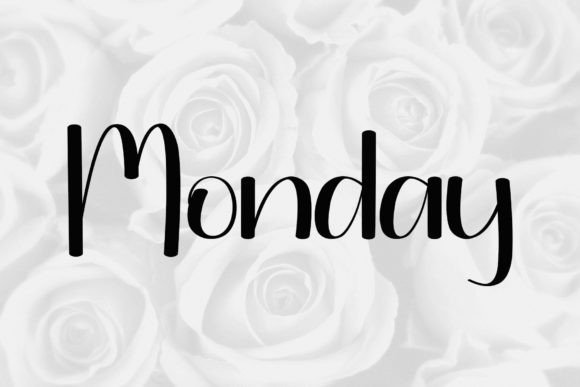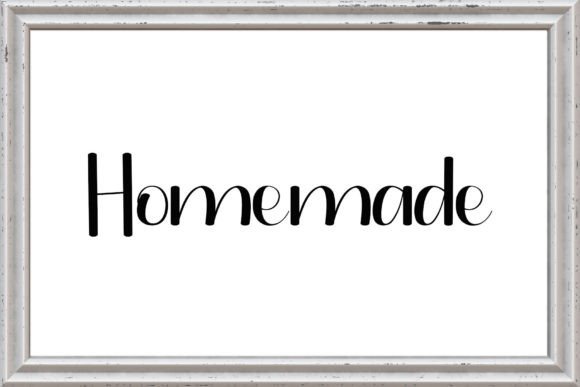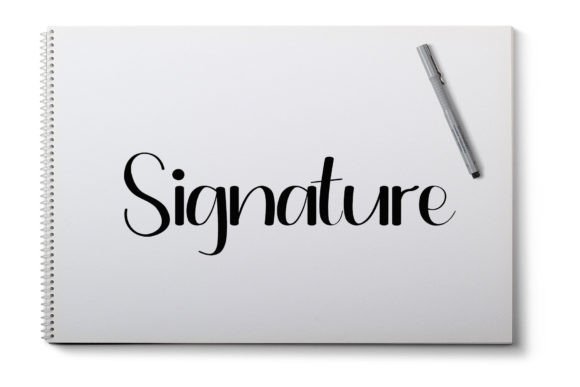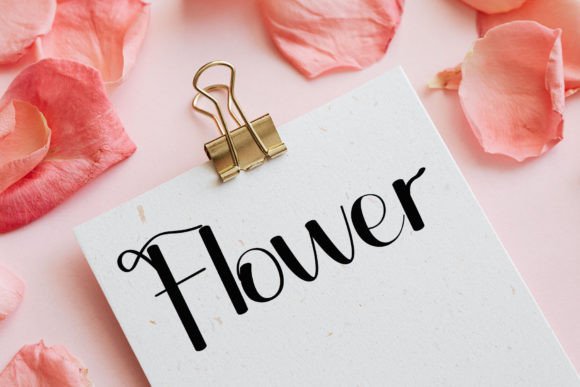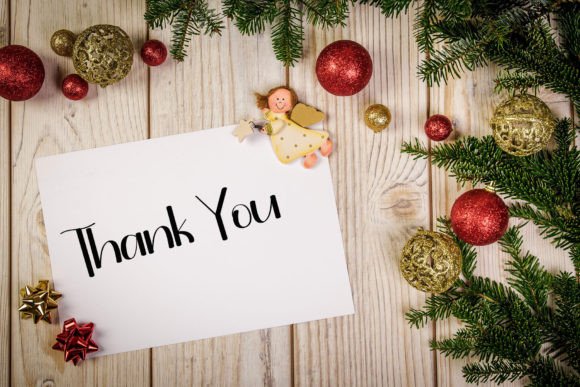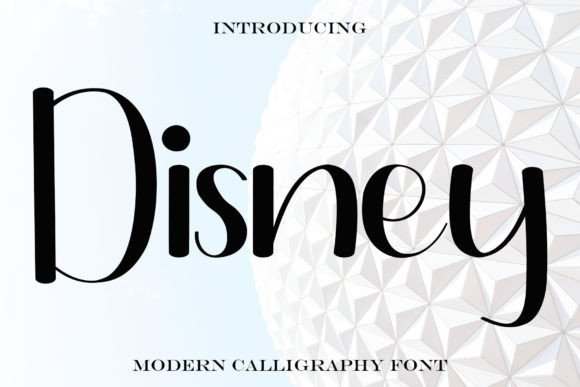
Introducing Disney Font: Elevate Your Designs with Timeless Elegance
Are you a designer, crafty enthusiast, or simply someone who appreciates beautiful typography? Look no further than the Disney Font, a trendy handwritten font that exudes a contemporary atmosphere and impeccable form. Inspired by timeless classic calligraphy, this stunning font is sure to add elegance and class to any of your design projects.
The Story Behind Disney Font
Disney Font is a carefully crafted typeface that draws inspiration from traditional calligraphy. Its unique blend of classic and modern elements makes it a versatile choice for a wide range of design applications. Whether you’re working on a logo, branding project, wedding invitation, or social media graphic, Disney Font is sure to make a lasting impression.
Key Features of Disney Font
- Trendy and Contemporary: Disney Font boasts a fresh and modern aesthetic that’s perfect for designers looking to create stylish and eye-catching designs.
- Handwritten Elegance: With its flowing lines and cursive flair, Disney Font adds a touch of sophistication and elegance to any design project.
- Timeless Classic Calligraphy: Inspired by traditional calligraphy, Disney Font brings a sense of heritage and tradition to your designs.
- Impeccable Form: Each letterform has been carefully crafted to ensure perfect proportions and balance, making Disney Font a joy to work with.
What Makes Disney Font So Versatile?
Disney Font’s versatility is one of its standout features. Its unique blend of classic and modern elements makes it suitable for a wide range of design applications, including:
- Logo Design: Create stunning logos that exude elegance and sophistication.
- Branding: Establish a strong brand identity with Disney Font’s distinctive and memorable style.
- Wedding Invitations: Add a touch of romance and whimsy to your wedding invitations and stationery.
- Social Media Graphics: Elevate your social media presence with eye-catching graphics that showcase Disney Font’s stylish charm.
In conclusion, Disney Font is a truly exceptional typeface that offers a unique blend of classic elegance and modern sophistication. Whether you’re a designer, crafty enthusiast, or simply someone who appreciates beautiful typography, Disney Font is sure to inspire and elevate your design projects. With its impeccable form, trendy aesthetic, and versatile nature, Disney Font is the perfect choice for anyone looking to add a touch of timeless elegance to their designs.